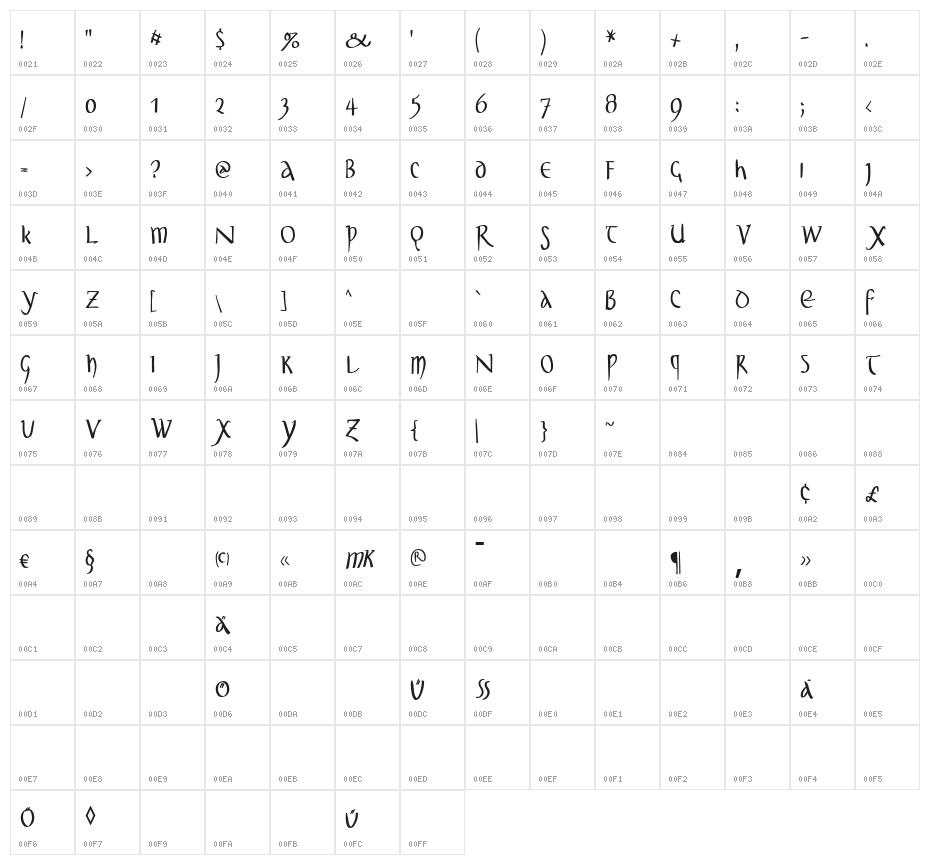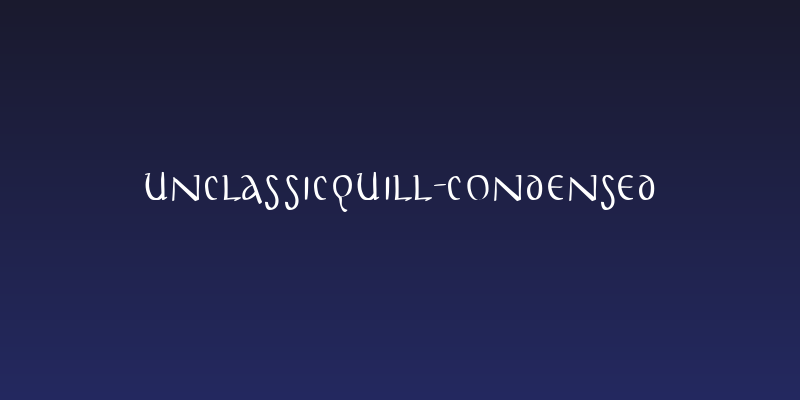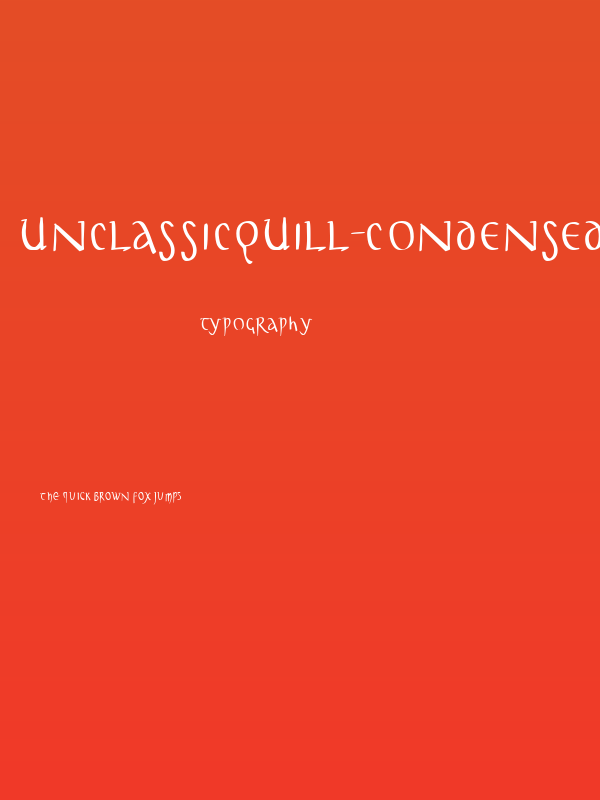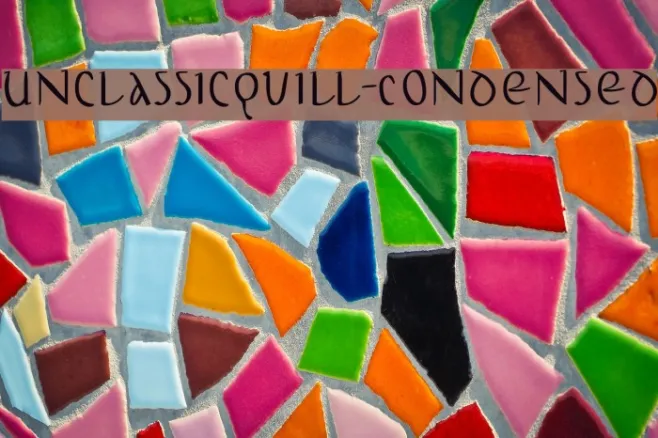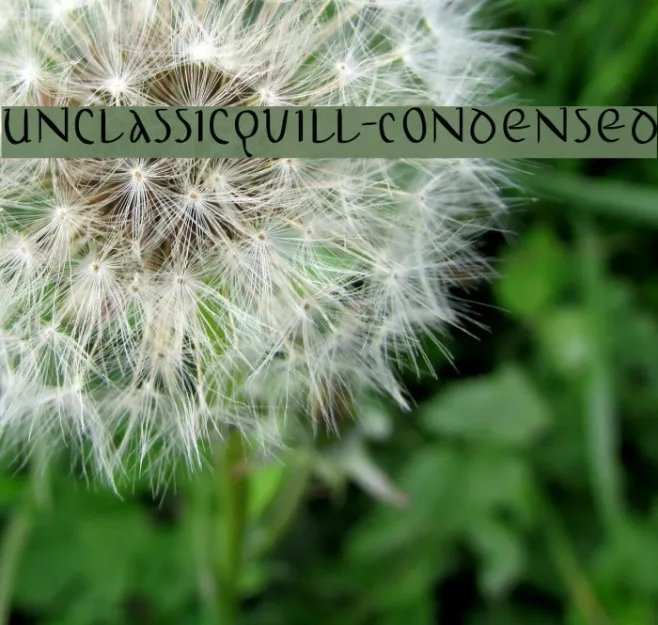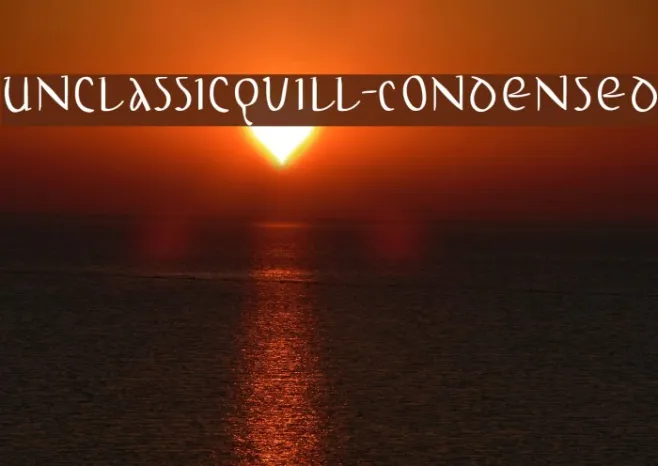
UnclassicQuill-Condensed Font
UnclassicQuill-Condensed Description
This font features a unique and artistic style that combines elements of calligraphy with a modern twist. The characters are elongated and slightly condensed, giving a sense of elegance and sophistication. The strokes are fluid and dynamic, with varying thickness that adds a lively and expressive quality. The uppercase and lowercase letters maintain a consistent style, with distinctive curves and angles that make each character stand out. The numerals and special characters are designed to complement the overall aesthetic, ensuring a cohesive look across all text elements.
| Proposed Projects | Ideal for creative projects such as invitations, branding, and artistic posters where a touch of elegance and uniqueness is desired. |